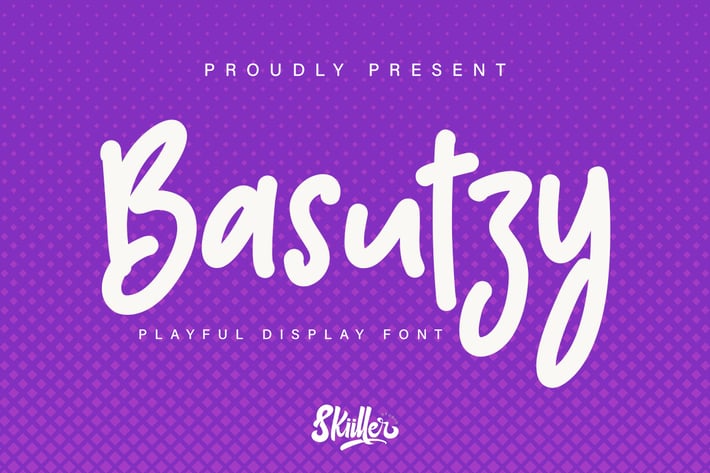
Basutzy - Playful Font
Basutzy Handwritten script with a natural flow and beautiful style. Basutzy is perfect for invitation design projects, prewedding, branding, logos, wedding designs, social media posts, advertisements, product packaging, product design, labels, photography, watermarks, invitations, stationery, and any project that requires handwriting tastes .
+ Ligature
+ Basic Latin Language Support (AÀÁÂÃÄÅCÇDÐEÈÉÊËIÌÍÎÏÑOØÒÓÔÕÖUÙÜÚÛWYÝŸÆß